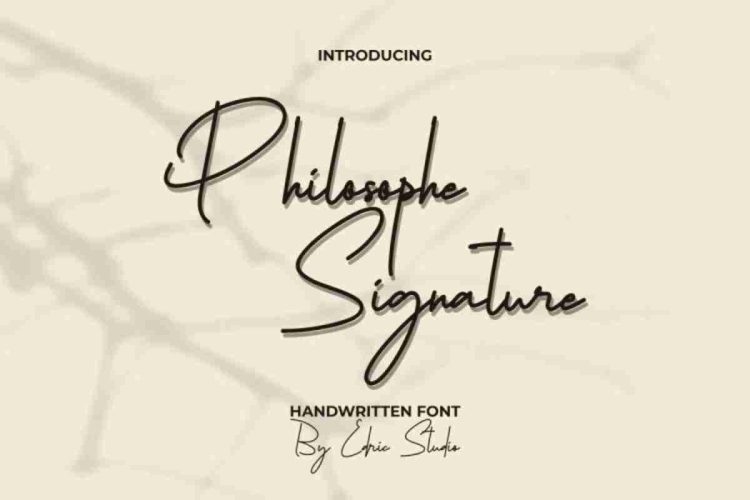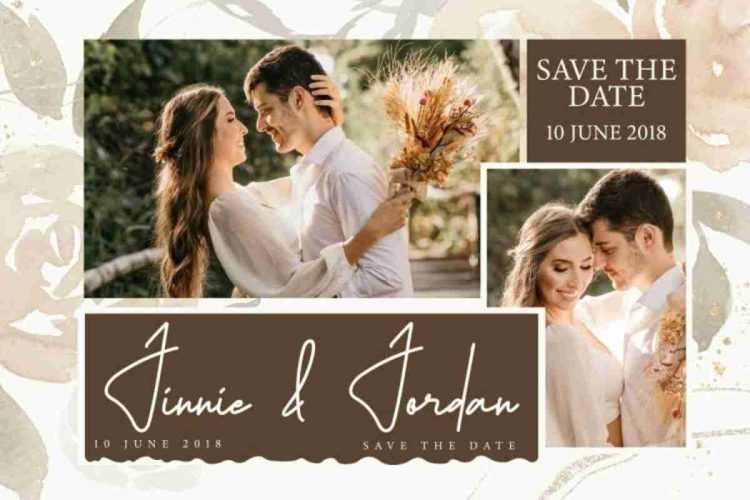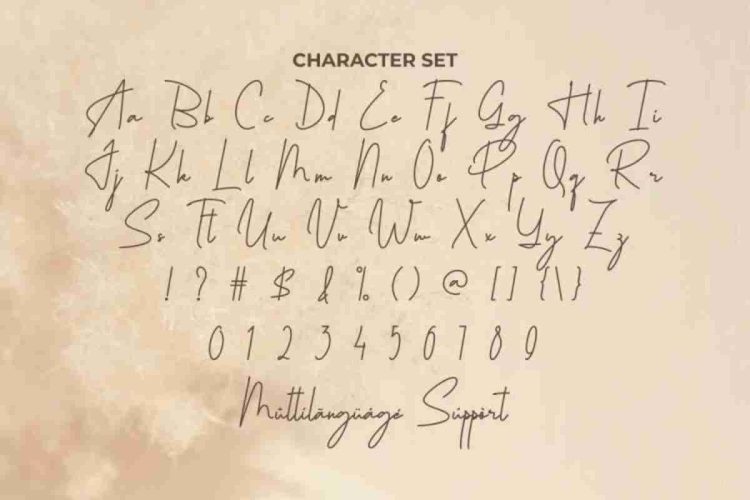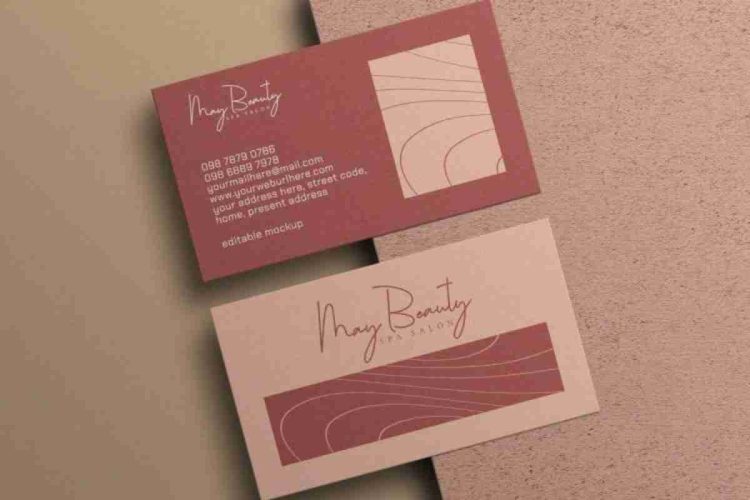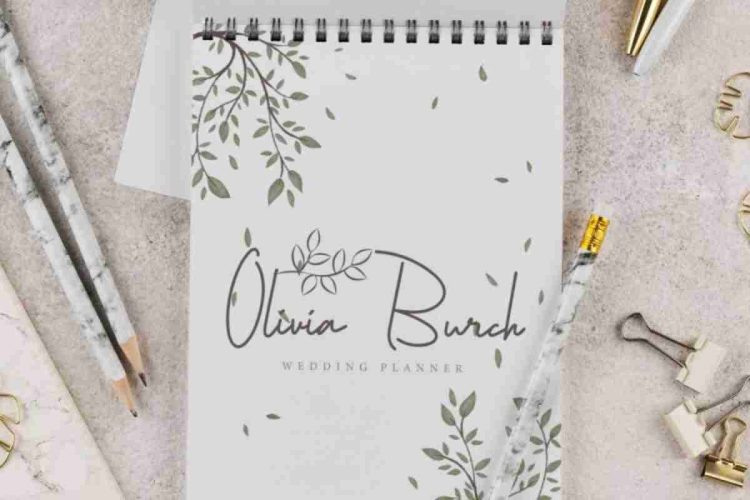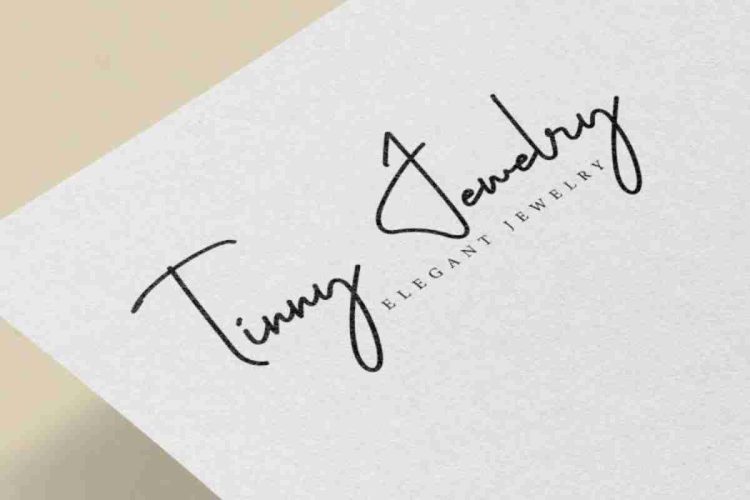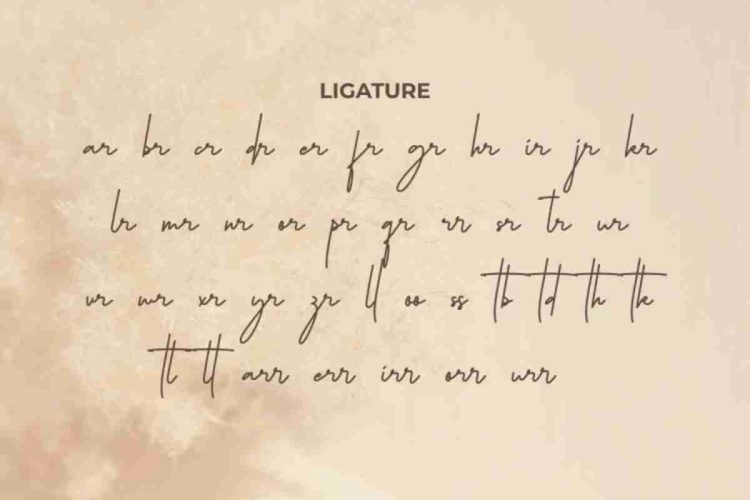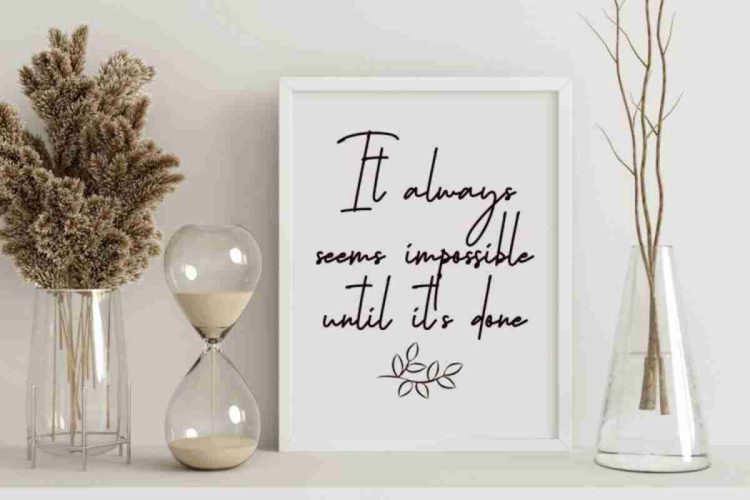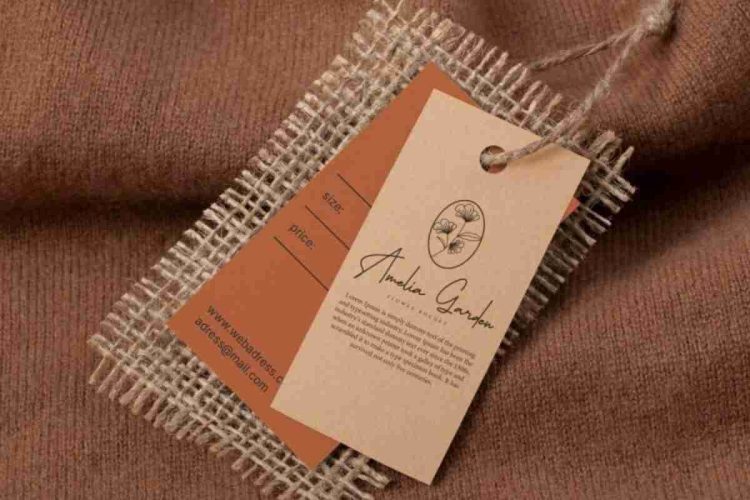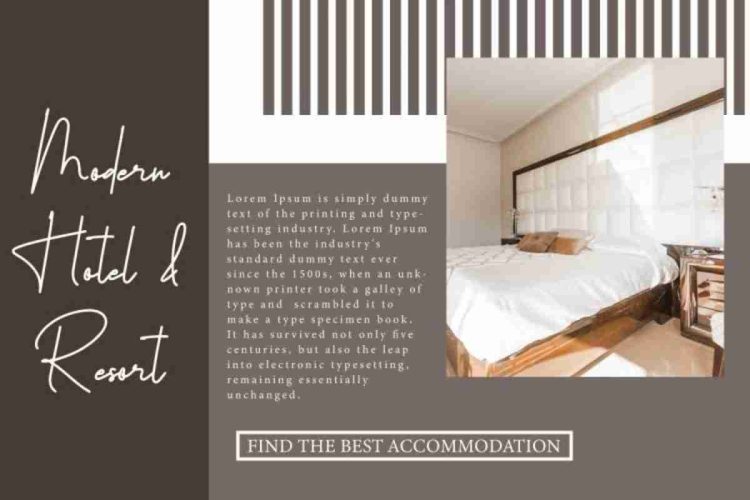
Philosophe Signature Font a modern handwritten signature typeface created by EdricStudio. This typeface has sleek and tall lines that will bring out undeniable beauty and suitable for industries like : architect, event tenant, florist, furniture, jewelry, photography, resort, salon and spa, wedding, writer, etc.
Philosophe Signature Font comes with a full set of Uppercase and Lowercase Basic Characters, Number, a large range of Punctuation and Symbol, Ligature. It has a stunning characters set, perfectly managed with well spaced and kerning. Philosophe Signature Handeritting Font this makes it an ideal choice for business cards, packaging design, labels, branding, invitations, quotes, social media graphics, and more.
Philosophe Signature Font is a playful typeface with unique decoration in each character. Ready to use both on Windows machine or Mac with simple installations. It’s tested to work well in the Adobe Apps (Illustrator, Adobe InDesign, Adobe Photoshop) even work on Microsoft Word. PUA Encode Characters means you can access all the glyphs and other additional characters easily – Fully accessible without additional design software.